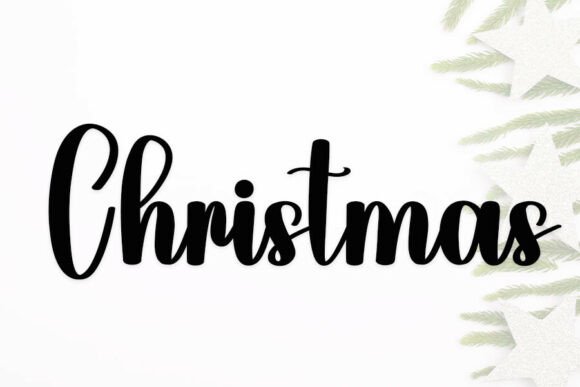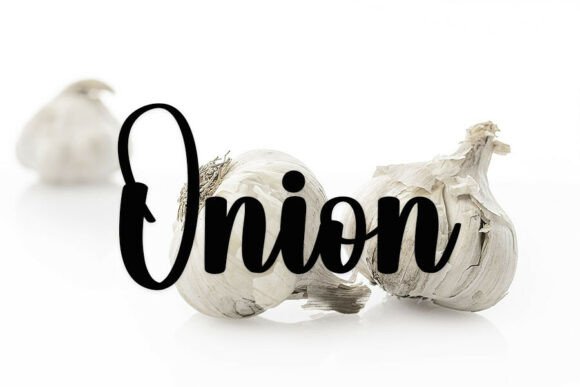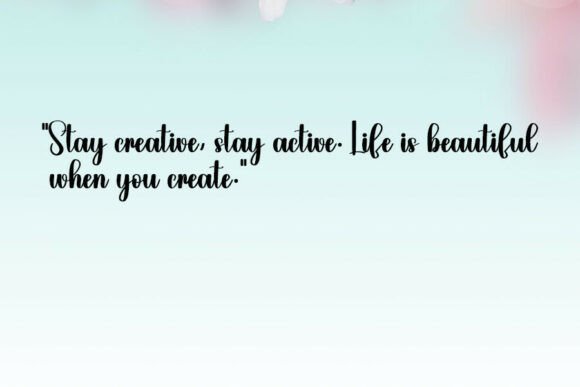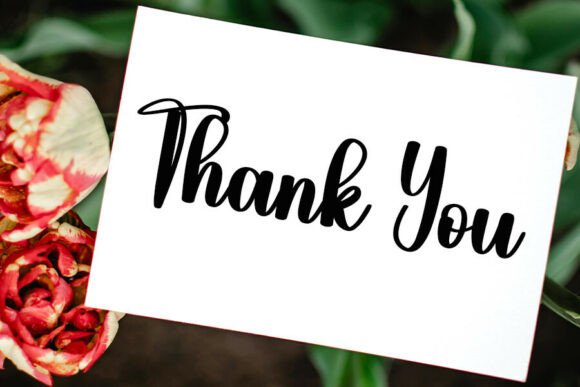
Introducing Chocolate Font: The Sweetest Addition to Your Design Collection
Are you a designer or crafter looking for a unique and cool font to elevate your designs? Look no further than Chocolate Font, a delicate handwritten font carefully crafted to add a touch of elegance and whimsy to your projects. In this article, we’ll dive into the world of Chocolate Font, exploring its features, uses, and benefits, as well as provide tips and inspiration for incorporating it into your designs.
What is Chocolate Font?
Chocolate Font is a beautiful, handwritten font designed to bring a sense of warmth and sophistication to your designs. With its flowing lines and delicate curves, this font is perfect for creating a range of materials, from letters and invitations to food products, titles, and more. Whether you’re a professional designer or a crafty DIY enthusiast, Chocolate Font is sure to become a favorite in your collection.
Key Features of Chocolate Font
- Handwritten with love: Chocolate Font is carefully crafted to mimic the look and feel of handwritten script, adding a personal touch to your designs.
- Delicate and elegant: With its slender lines and flowing curves, Chocolate Font exudes a sense of sophistication and refinement.
- Versatile: From formal invitations to casual social media posts, Chocolate Font can be used in a wide range of design applications.
- Easy to read: Despite its elegant appearance, Chocolate Font is highly legible, making it perfect for use in body text and captions.
Uses for Chocolate Font
So, how can you use Chocolate Font in your designs? The possibilities are endless! Here are a few ideas to get you started:
- Invitations and stationery: Use Chocolate Font to create beautiful wedding invitations, birthday cards, and other special occasion stationery.
- Food and beverage branding: Chocolate Font is a natural fit for food and beverage brands, particularly those with a gourmet or artisanal focus.
- Social media graphics: Add a touch of elegance to your social media posts with Chocolate Font, perfect for highlighting quotes, promotions, or new product launches.
- Packaging and labels: Use Chocolate Font to create eye-catching packaging and labels for your products, adding a personal touch to your brand.
Tips for Using Chocolate Font
To get the most out of Chocolate Font, here are a few tips to keep in mind:
- Pair with contrasting fonts: Combine Chocolate Font with bold, sans-serif fonts to create visual interest and hierarchy in your designs.
- Experiment with colors: Chocolate Font looks beautiful in a range of colors, from rich browns and blacks to soft pastels and metallics.
- Use it sparingly: While Chocolate Font is beautiful in large blocks of text, it can also be used effectively in smaller doses, such as in headings or captions.
In conclusion, Chocolate Font is a versatile and elegant addition to any design collection. With its delicate, handwritten curves and flowing lines, this font is perfect for creating a range of materials, from formal invitations to social media graphics. Whether you’re a professional designer or a crafty DIY enthusiast, Chocolate Font is sure to become a favorite in your toolkit. So why wait? Download Chocolate Font today and start adding a touch of sweetness to your designs!